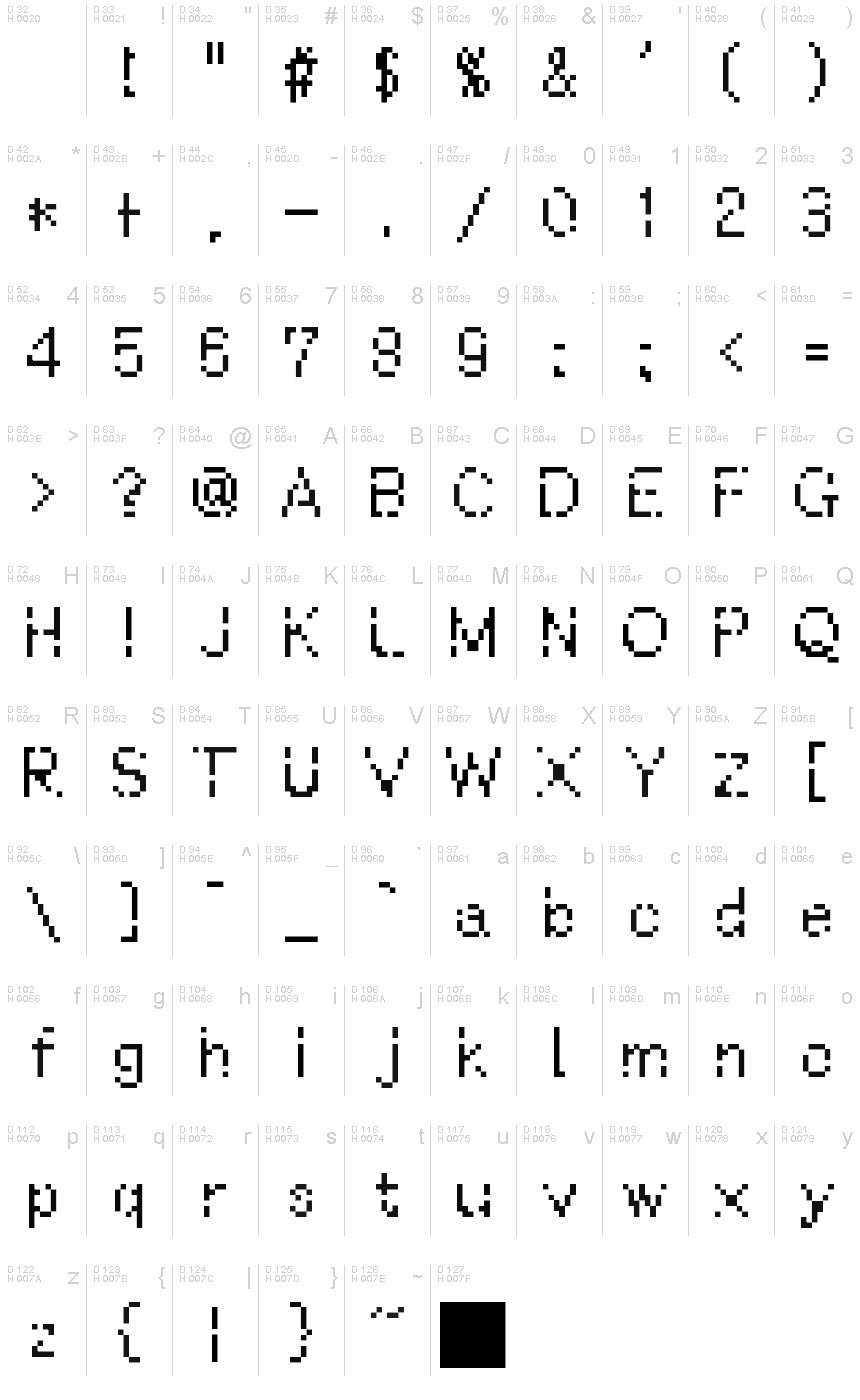
WWareTypeB
WWareTypeB - a WarioWare: D.I.Y. pixel font.
WWareTypeB is a playful, proportional sans-serif font recreation based on an original pixel font appearing in the game WarioWare: D.I.Y., which was developed by Intelligent Systems and Nintendo SPD, and released by Nintendo for the Nintendo DS in 2009.
The character set of this font was notably expanded with additional special characters, diacritic variants, unique glyphs and the like, each one of them designed to match the spirit and style of the original font design.
FEATURES
409 characters total
Proportional display sans-serif typeface
Countless additional special characters, diacritic variants, etc.